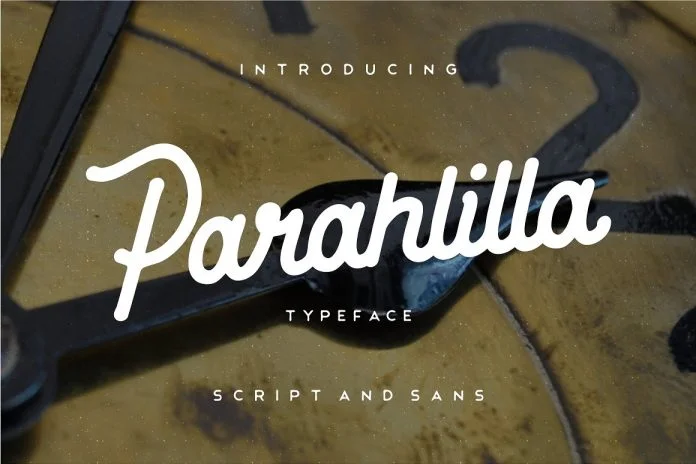
Parahlilla Script & Sans is perfect for versatile brand identity systems, elegant wedding packages, sophisticated marketing materials, luxury boutique branding, refined business communications, graceful stationery collections, upscale fashion campaigns, premium beauty salon signage, harmonious editorial layouts, and coordinated promotional designs.
Parahlilla Script & Sans Font is exciting because it offers the perfect typographic pairing through complementary letterforms that create seamless design harmony between elegant script sophistication and clean sans-serif functionality with professional versatility. This expertly designed duo combines flowing calligraphic beauty with contemporary readability, making it perfect for brands that want to communicate both elegance and professionalism in cohesive design systems.
The Parahlilla Script & Sans Font family includes flowing script weights paired with matching sans-serif companions, featuring coordinated styling and harmonious design elements. The font duo showcases complementary design details, perfectly-balanced proportions, and unified character variations that create a comprehensive typographic system for sophisticated and versatile brand applications.
Parahlilla Script & Sans Free Download provides designers with access to premium dual typography that brings authentic elegant versatility to contemporary design projects. This masterfully crafted font pairing has been developed to ensure perfect harmony between script elegance and sans-serif functionality while maintaining consistent brand personality across all applications. The duo's complementary character and professional appeal make it ideal for luxury brands requiring typographic flexibility.
The sophisticated versatility of Parahlilla Script & Sans makes it an invaluable tool for luxury retailers, professional service providers, and upscale businesses that need typography capable of communicating both elegance and professionalism across diverse applications. The font duo's harmonious character helps establish consistent brand identity while providing flexibility for hierarchical text structures and varied communication needs.
Wedding professionals, luxury brands, and design agencies consistently choose Parahlilla Script & Sans for its ability to convey sophisticated elegance and professional versatility through coordinated typography. The font duo excels in applications where establishing luxury credibility and design flexibility are essential to brand positioning, making it particularly effective for high-end services, luxury goods, and sophisticated brands targeting discerning consumers.
This font duo's comprehensive character sets include elegantly-paired letterforms, coordinated numerals, harmonious punctuation marks, and complementary symbols that support authentic luxury typography composition. The consistent sophisticated styling maintains the elegant versatility theme throughout all characters while ensuring professional readability across all luxury and sophisticated design projects requiring Parahlilla Script & Sans Free Download functionality.